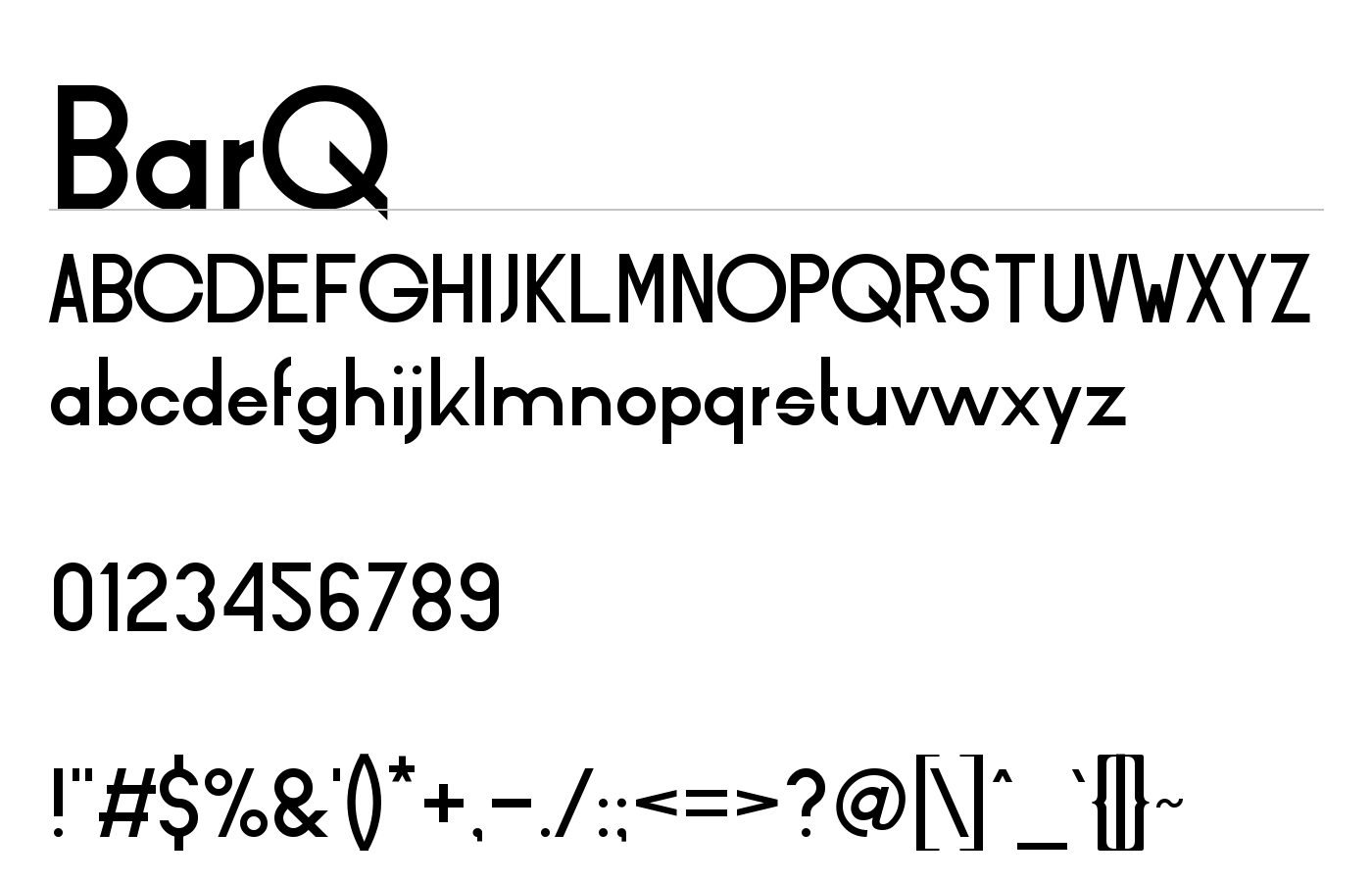
BarQ is a modern, geometric sans serif font with a clean and condensed structure that conveys a sleek and contemporary feel. Its uniform stroke weight and distinctive letterforms, like the sharp tail on the Q and single-story a and g, give it a bold yet refined personality, making it ideal for stylish branding, editorial headlines, and digital use where clarity and modern aesthetics are key.
BarQ Font
About BarQ Font